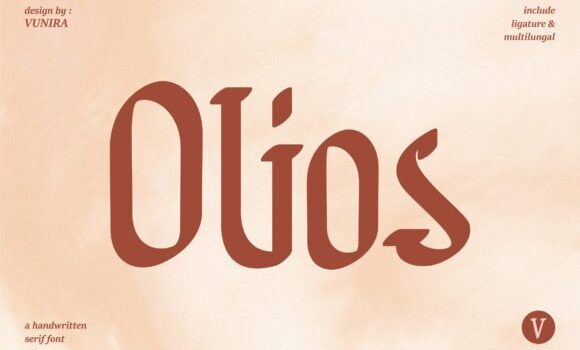
olios
Olios Font – Free Download Introduction to Olios Font Olios feels equally charming and elegant. 📸 Preview Gallery 5 images 📌 Product Name Olios Font 👤 Author Vunira 📂 Category Explore ⬇️ Download Olios Font FREE Free Download • Instant